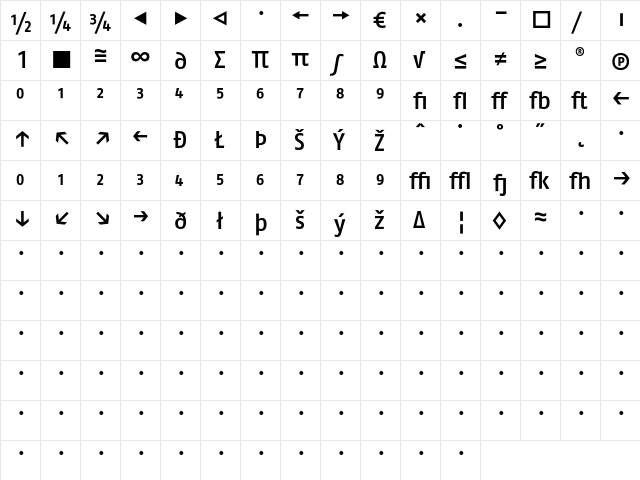
FagoNo MediumExpert Font Preview
FagoNo MediumExpert
FagoNo MediumExpert Font Details
Design Context for FagoNo Typeface
FagoNo offers clean, dependable letterforms without strong stylistic allegiance, making it a practical choice for designers who need flexibility.